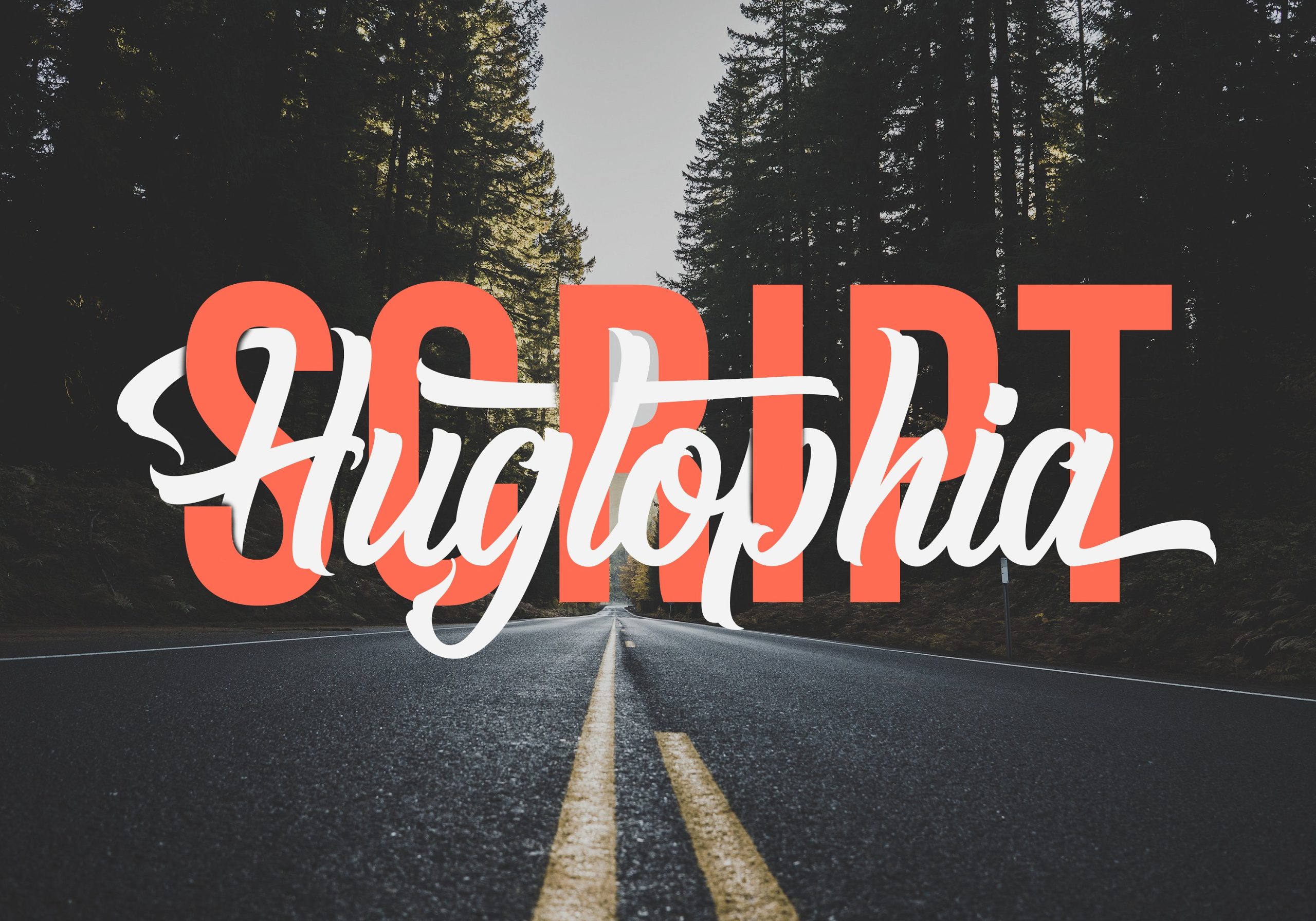
Hugtophia Script Font
Introducing Hugtophia. It is designed by maculinc, this is a premium font, are sold on creativemarket, but it was great, it is free today for download. Hugtophia is a simple typography and easy to read so comfortable to wear. You can use them as logos, badges, packaging, headlines, posters, t-shirts / clothing, greeting cards, business cards, and wedding invitations and more. The flowing character is ideal for creating interesting messages to your taste.